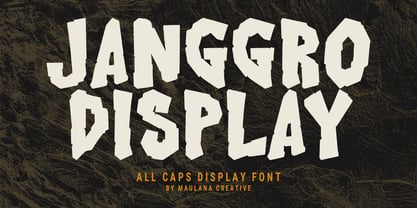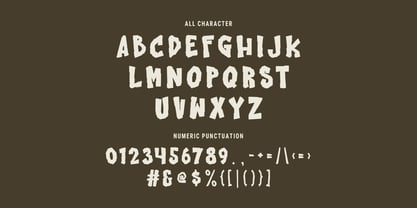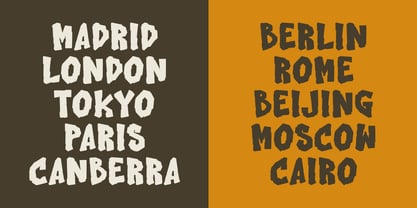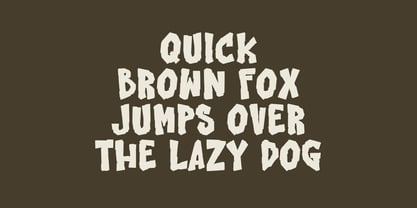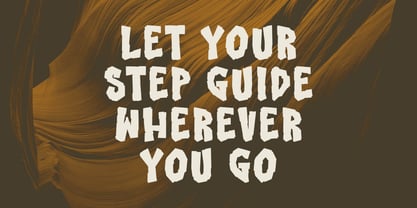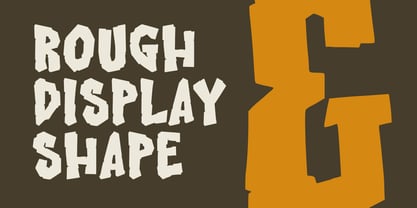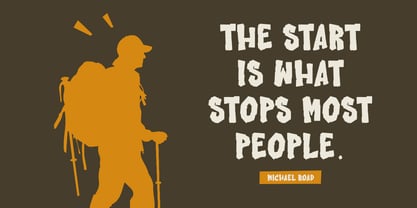
MC Janggro
von Maulana Creative
Die Schriftfamilie MC Janggro wurde von Gilang Maulana entworfen und von Maulana Creative veröffentlicht. MC Janggro enthält 1 Stile. Mehr über diese Familie
Janggro all caps sans display font. Heavy stroke and fun character. To give you an extra creative work. Janggro font support multilingual more than 100+ language. This font is good for logo design, Social media, Movie Titles, Books Titles, a short text even a long text letter and good for your secondary text font with script or serif. Make a stunning work with Janggro display font.
Designer: Gilang Maulana
Foundry: Maulana Creative